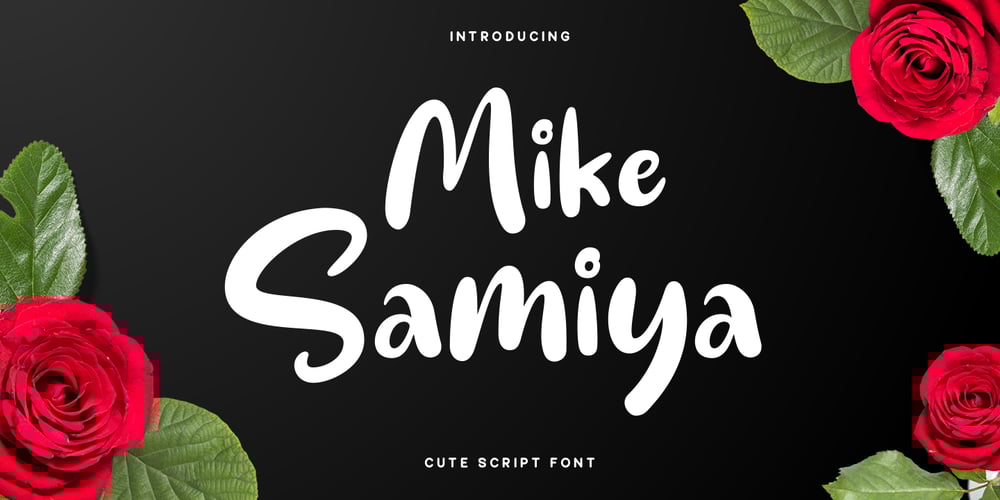
Mike Samiya
Mike Samiya font
Mike Samiya Font Family was designed by Akhmad Reza Fauzi and published by Grezline Studio. Mike Samiya contains 1 styles and family package options. Mike Samiya is a playful and unique font crafted very carefully. Mike Samiya is perfect use for a logo for branding, typography design, christmas card, product packaging, invitation, quotes, t-shirt design, label poster, special events and anything that need handwriting taste.